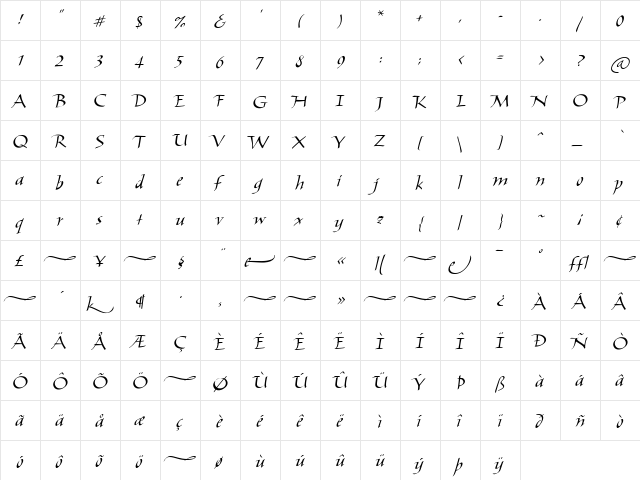
Elli Regular Font Preview
Elli Regular
Elli Regular Font Details
Design Context for Elli Typeface
Elli takes a measured approach to typography — its balanced proportions and neutral character make it a reliable workhorse for both digital and print work.